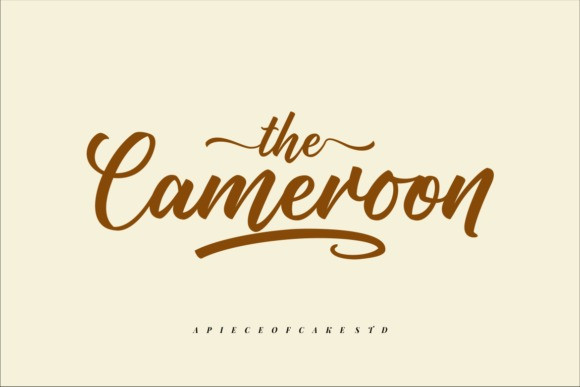
Cameroon Font
Cameroon is a magical script font carefully created with a touch of elegance. This font is PUA encoded which means you can access all glyphs and swashes with ease!